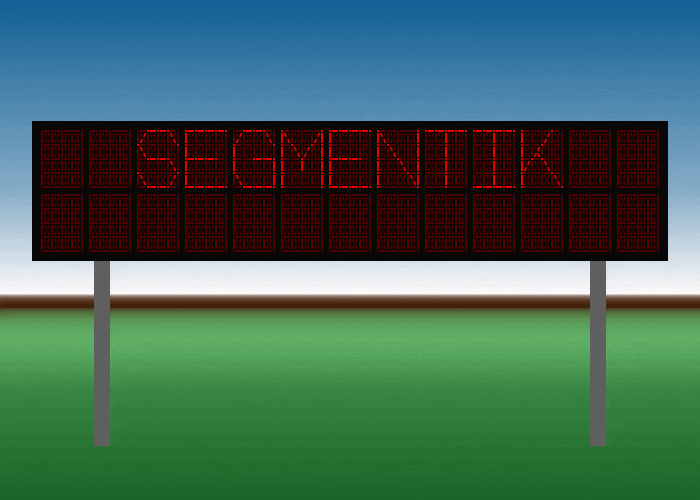
• Segmentik is a 129-segment display color font.
Also includes characters for borders in the Private Use Area. U+E02E for all off, and U+E02F for all on.
I love this! Never would've thought to "maximalise" a segmented display. Would be really fun to make all sorts of alternate characters out of it.
alt [g]
I wonder how you were able to use the FontStruct previewer when the font won't even load correctly?
@bwm with the sample